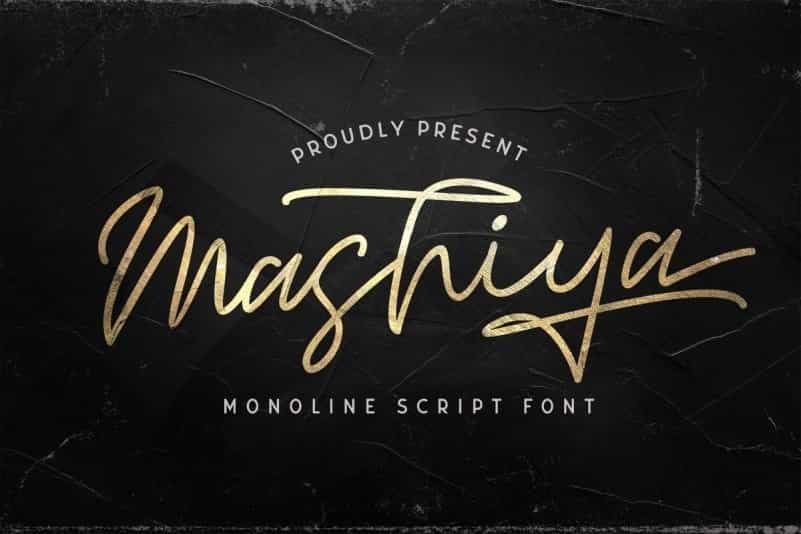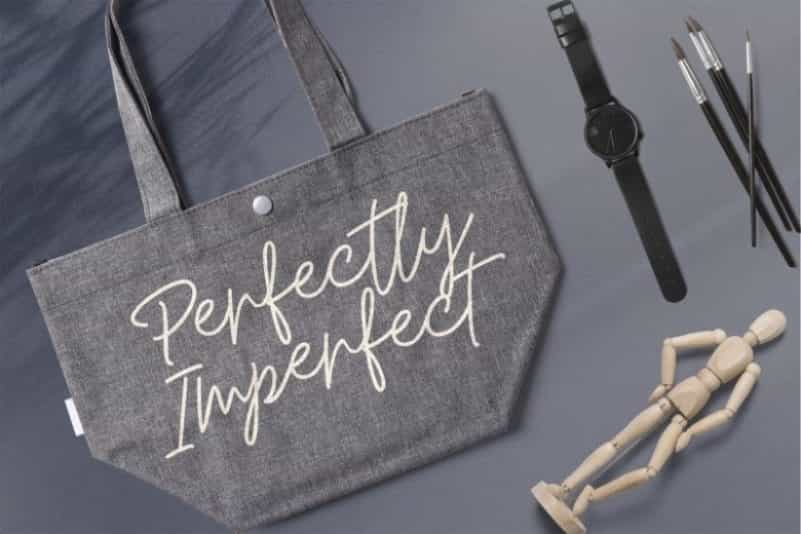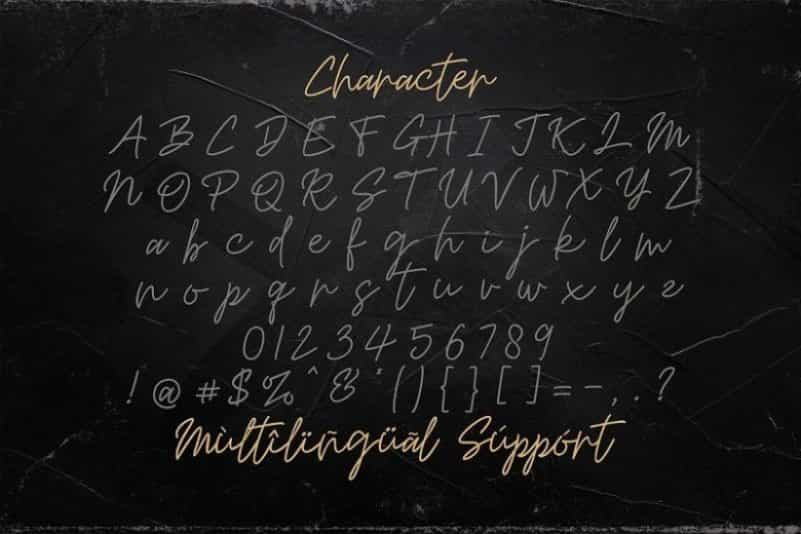
Discover Mashiya Handwritten Monoline Font, part of the Handwritten Script Monoline collection—a versatile and unique font perfect for adding a personal touch to your projects. Download it for free and enjoy crafting designs with style, from invitations to social media posts. This font is available exclusively for personal use, giving you the freedom to create without limits. Unlock your creativity with Mashiya Handwritten Monoline Font today!
Mashiya can be described as a original, stylish and contemporary handwritten script font. The hand-style is perfect for all of your design projects including logos, signatures labels, packaging designs, labels and headlines for blogs. You can also use it for your small-scale book covers, magazines, stationery, marketing and much more.